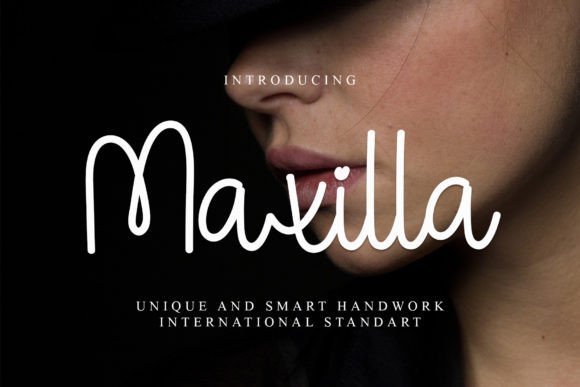
Embark on a typographic adventure with Maxilla Font, the crown jewel of script fonts, designed by the ingenious Flower. This handcrafted masterpiece elevates your designs with its captivating strokes and elegant curves, leaving an unforgettable impression on your audience.
Maxilla's essence lies in its versatility, seamlessly adapting to a symphony of creative endeavors. Whether you're crafting heartfelt wedding invitations, extending warm greetings with cards, or making a bold statement on billboards, logos, and business cards, Maxilla becomes your artistic partner, transforming your vision into a visual masterpiece.
Experience the allure of rounded monograms, where Maxilla's characters dance in perfect harmony, creating a cohesive and visually striking aesthetic. Its varied baseline adds a touch of playful charm, allowing you to craft designs that exude character and personality.
With Maxilla as your creative ally, you'll discover a world of possibilities. Its impeccable craftsmanship ensures that every letter, every stroke, and every curve is meticulously rendered, resulting in designs that captivate and inspire.
Maxilla's versatility knows no bounds. Its graceful curves lend a touch of elegance to wedding invitations, while its playful nature adds a dash of whimsy to greeting cards. Unleash your creativity and watch as Maxilla transforms your designs into works of art, leaving a lasting impression on all who behold them.
Maxilla is more than just a font; it's an expression of your individuality, a reflection of your unique style. It empowers you to communicate with clarity and creativity, leaving an indelible mark on the world through your designs.
Embrace the beauty of Maxilla Font, let your imagination soar, and embark on a typographic journey like no other. Discover the endless possibilities that await you as you create designs that resonate with your audience and leave a lasting legacy of creativity.